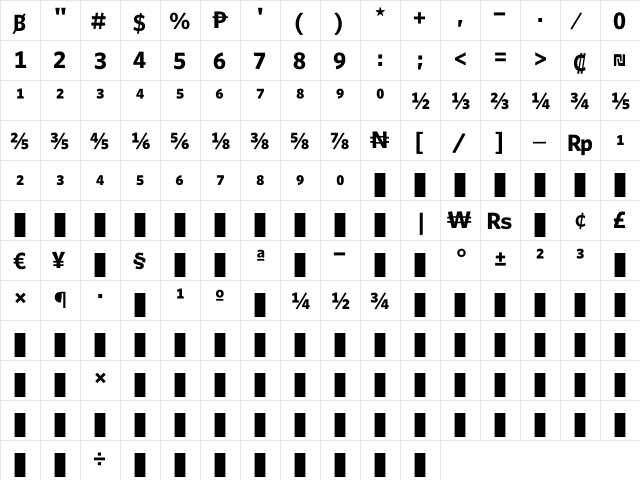
WhitneyNumeric Bold Font Preview
WhitneyNumeric Bold
Design Context for WhitneyNumeric Typeface
WhitneyNumeric takes a measured approach to typography — its balanced proportions and neutral character make it a reliable workhorse for both digital and print work. Its bold stroke weight gives it real presence on the page.